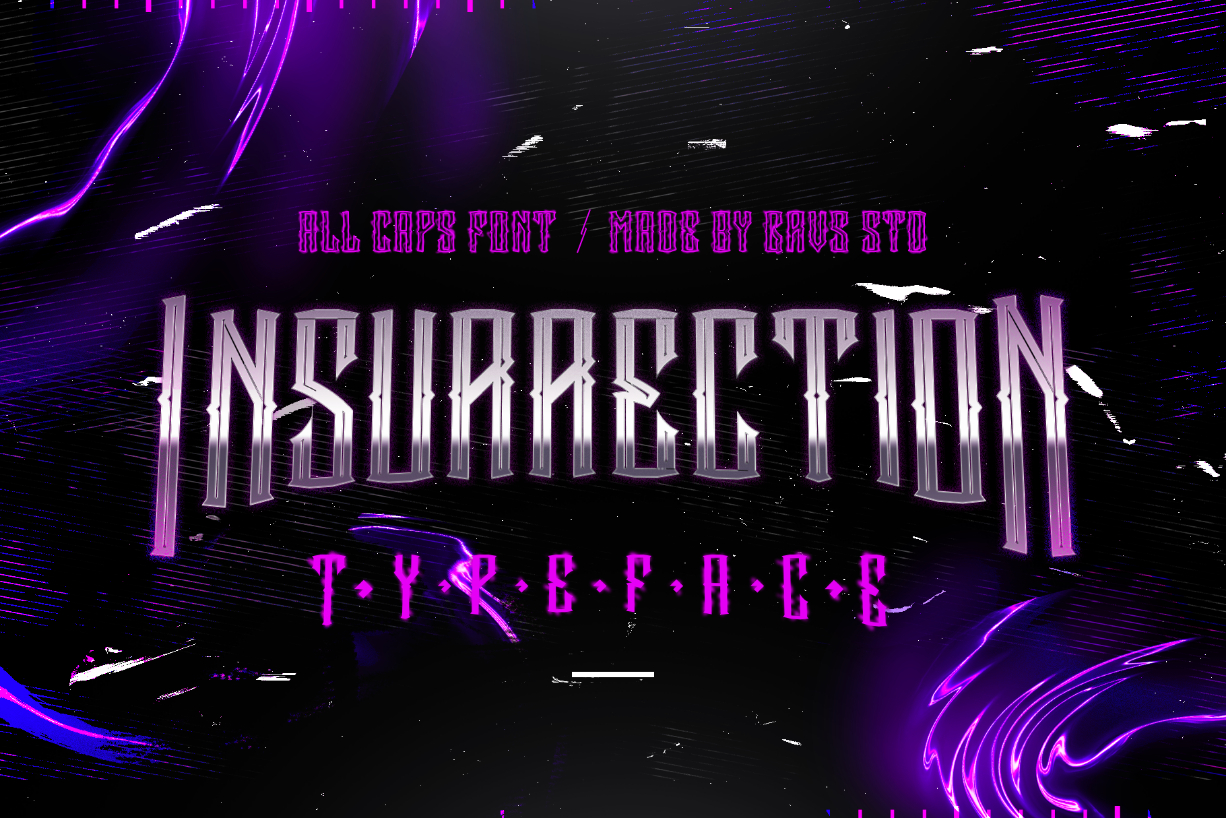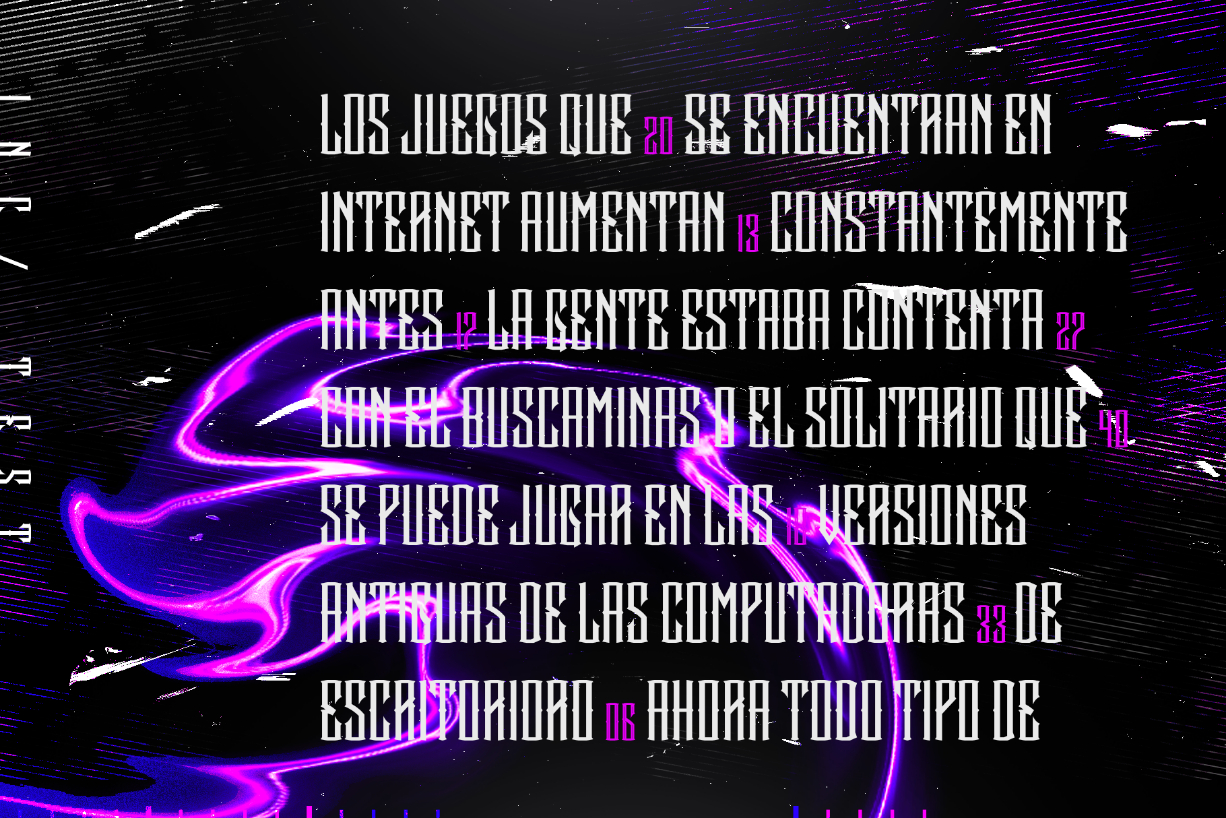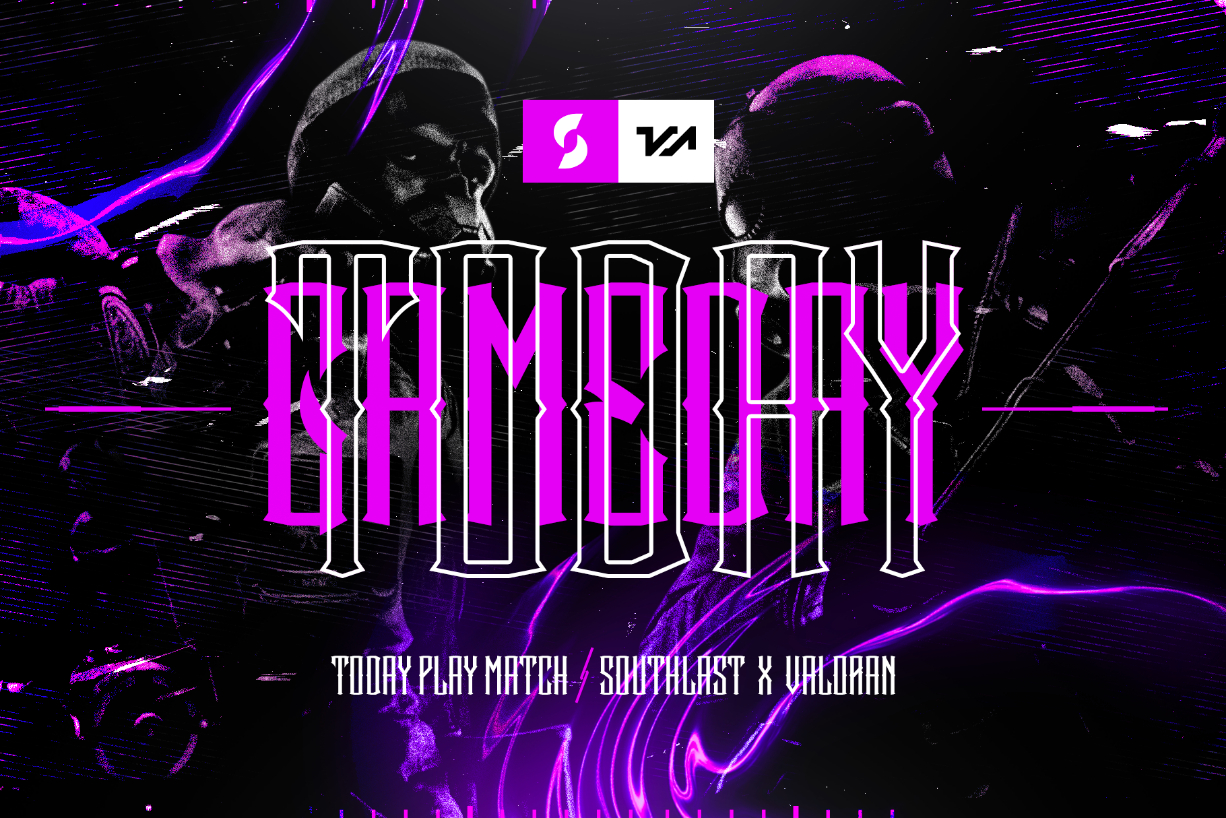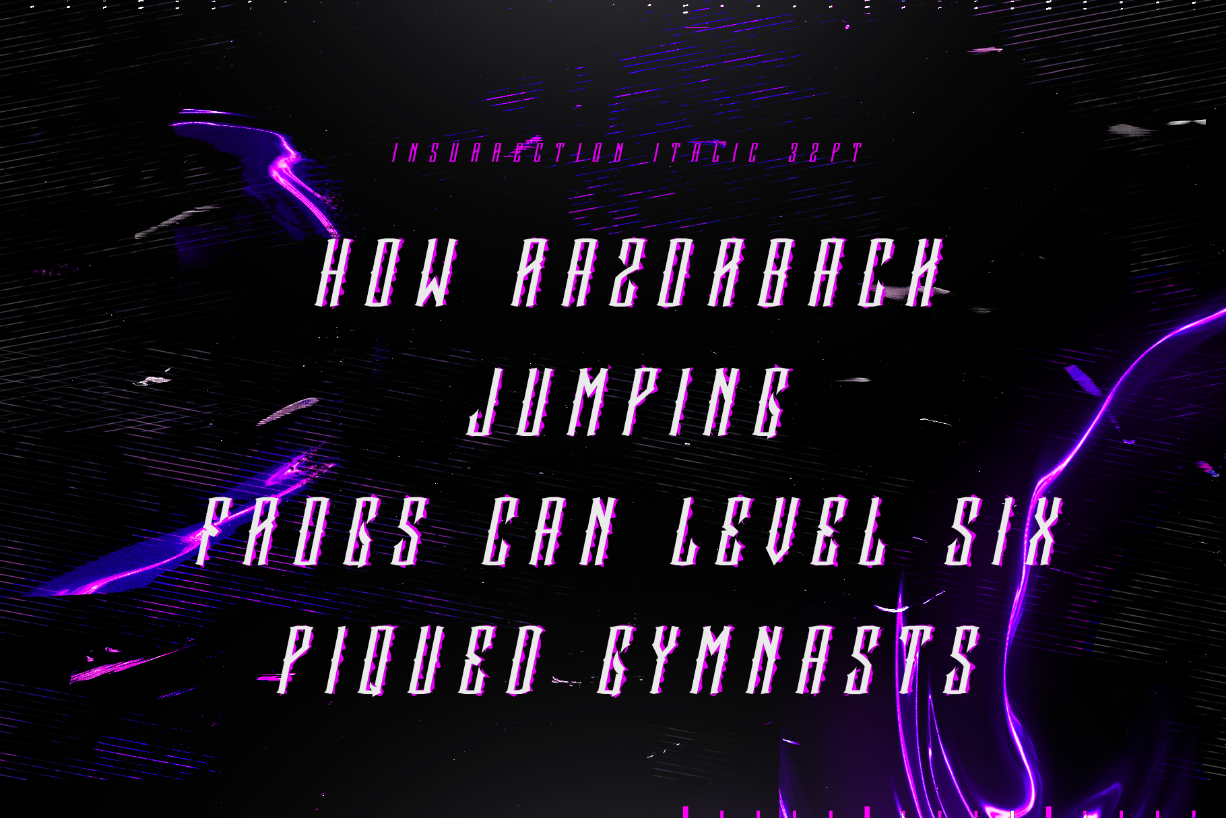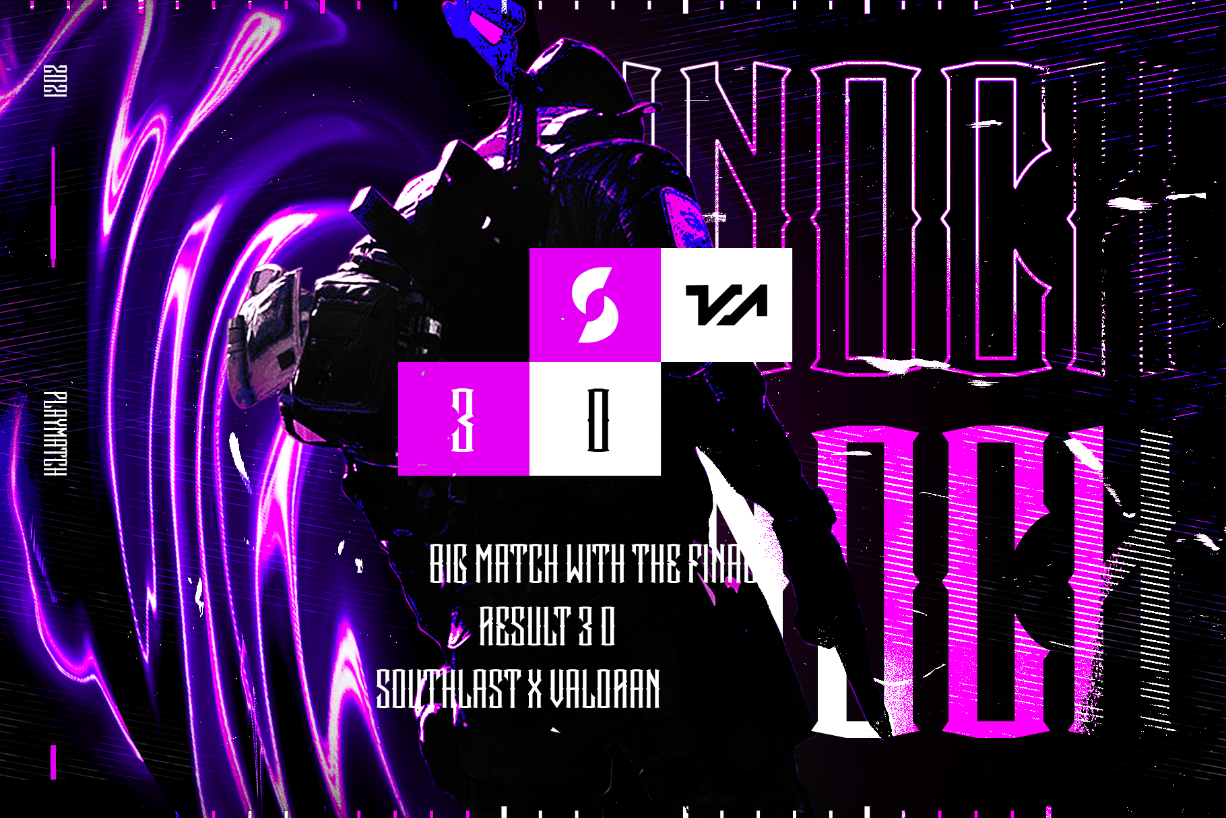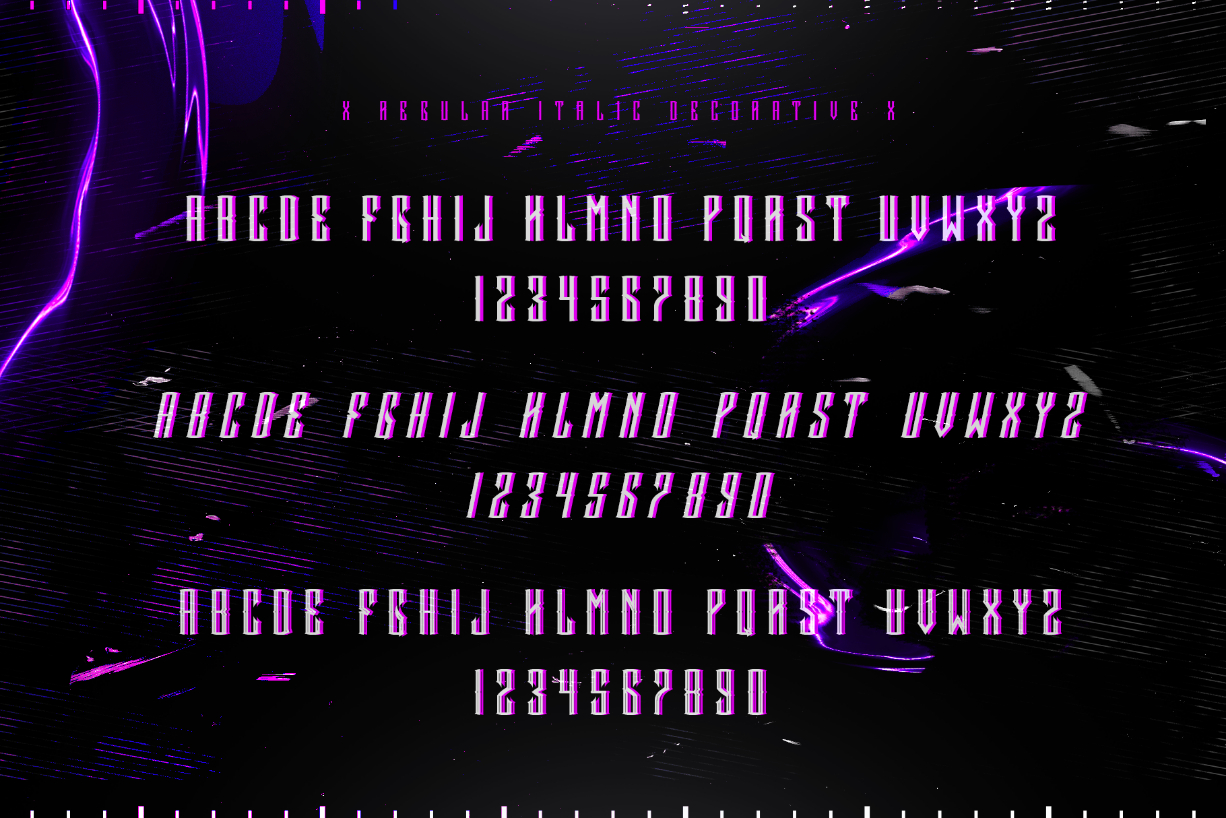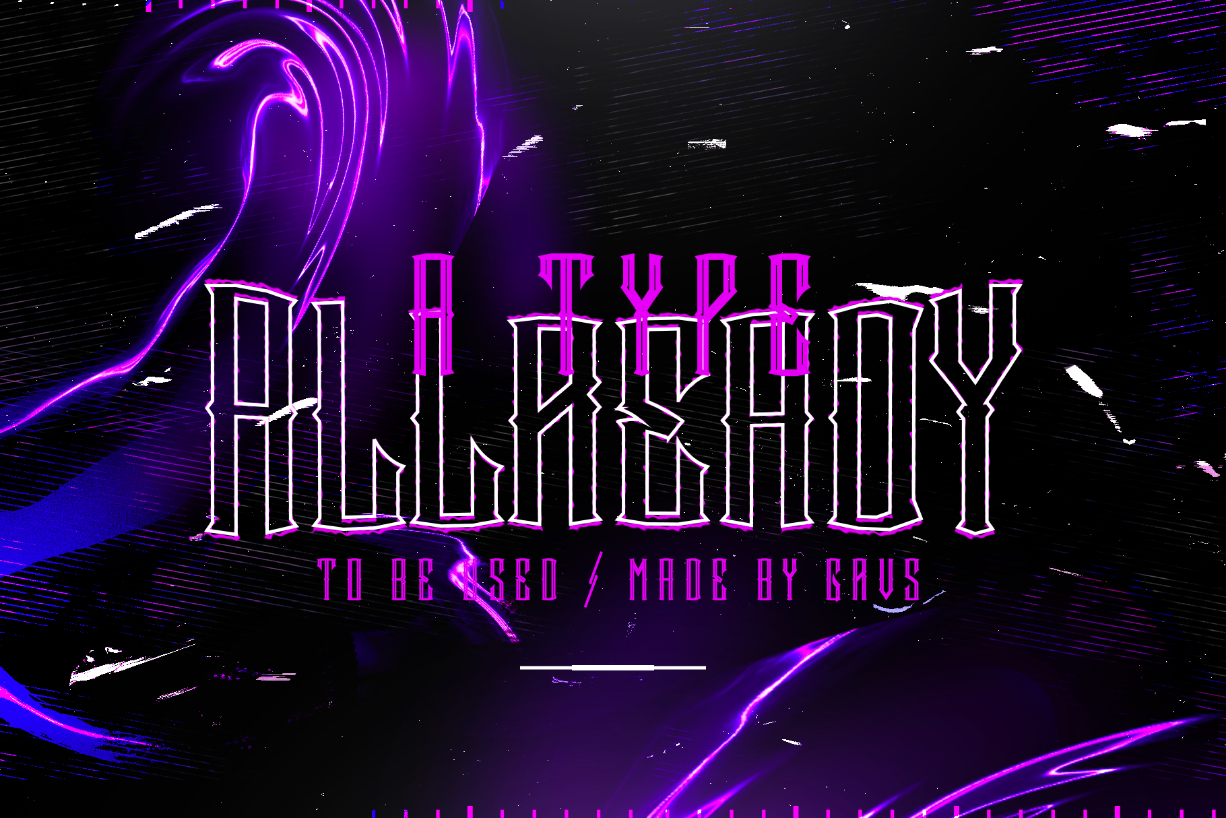
Insurrection Font
About Insurrection Font
Insurrection is a cool, distinct and imposing blackletter font. Expertly designed to make your creation look out of this world, this font has the potential to take your creative ideas far further.